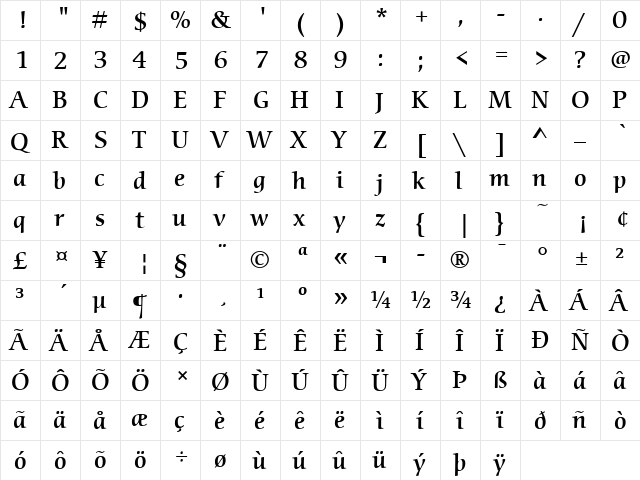
ITCCerigo LT Medium Regular
Design Context for ITCCerigo LT Medium Typeface
ITCCerigo LT Medium is a composed and adaptable typeface that performs quietly and consistently across a wide range of design contexts. Its slender proportions lend an understated elegance to any composition.